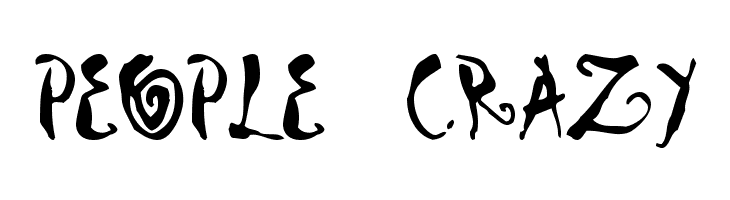
Skinner AOE Font
- Font: Skinner AOE
( Fonts by Astigmatic One Eye Typographic Institute - Brian J. Bonislawsky - astigmatic.com )
A playful, hand-drawn font with quirky, artistic flourishes.